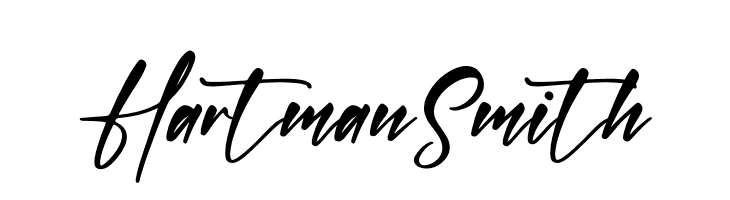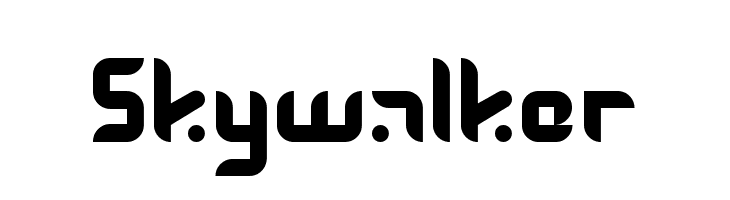
A bold, pixelated font with a retro, digital aesthetic.
A playful and dynamic handwritten font with bold, fluid strokes and unique flourishes.
A condensed, extra light font with a sleek and modern design.
A lively and expressive handwritten font with fluid strokes and playful elegance.
A bold, angular font with a futuristic and geometric design.
A bold, expressive handwritten font with brush-like strokes and dynamic flow.
A bold, playful font with rounded edges and a whimsical style.
An ornate and decorative font with vintage gothic elements.
A graceful script font with flowing, interconnected characters and elegant flourishes.
A futuristic, bold, and geometric font with expanded characters.